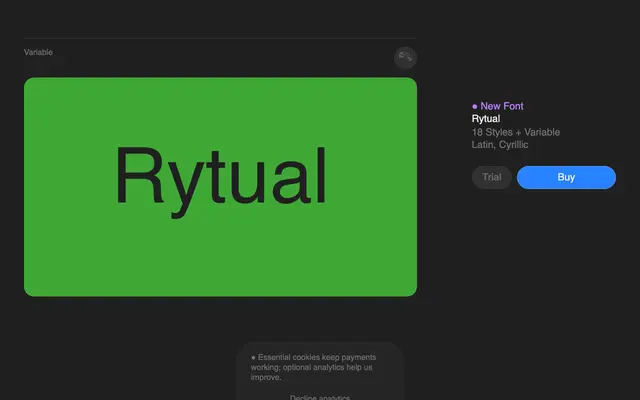
Rytual
A grotesque sans by Petr Kučera that grew from a custom commission into an 18-style variable family covering Latin and Cyrillic.
Originating as a bespoke project for a friend, Rytual expanded into a full family of 18 styles plus a variable font, with weights running from Thin to Black and matching italics. The design philosophy favours accumulated consistency over single dramatic moves, a logic the foundry traces directly to the routine of a daily run. Cyrillic support broadens its reach, and a suite of 14 stylistic sets and 9 OpenType features adds flexibility for editorial and display use.
The specimen and design logic suggest a contemporary grotesque sans with condensed tendencies and variable axis support, built around consistent rhythmic structure rather than dramatic stylistic gesture.